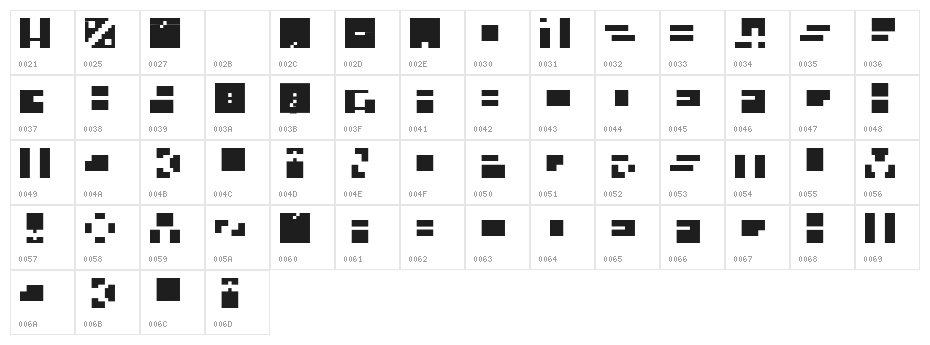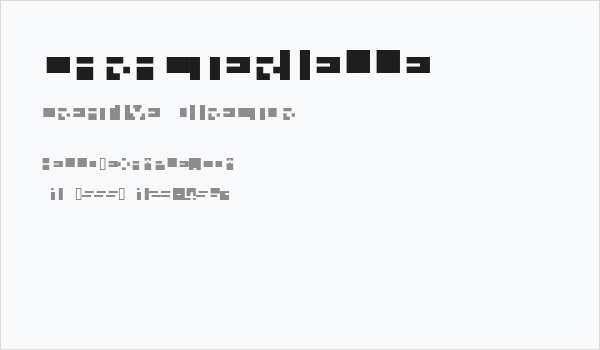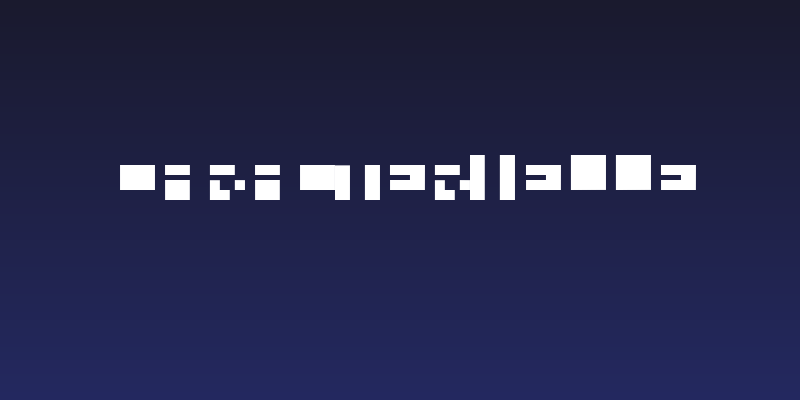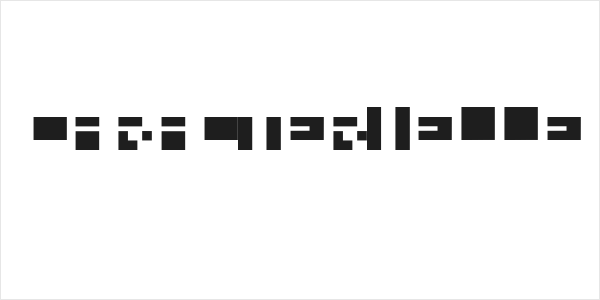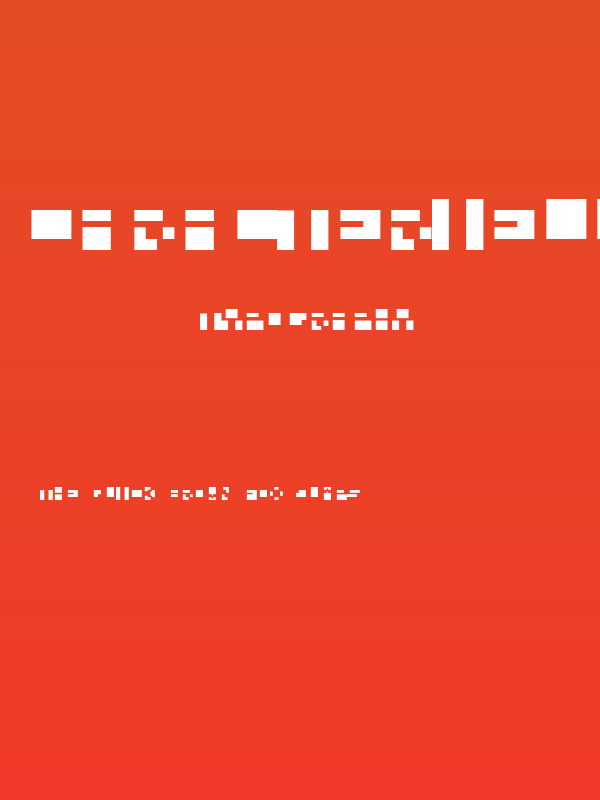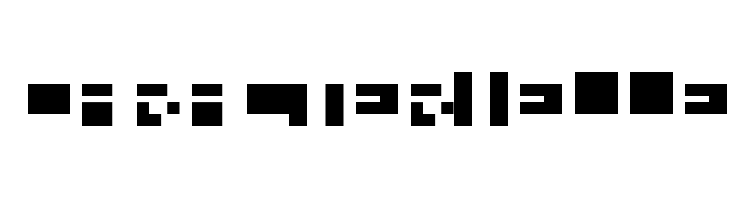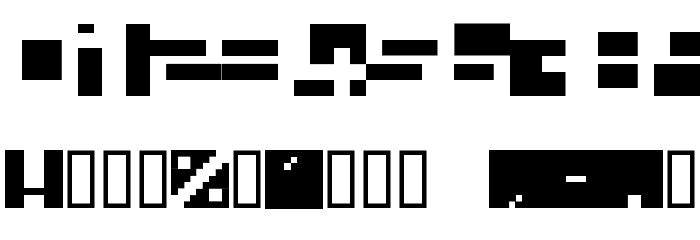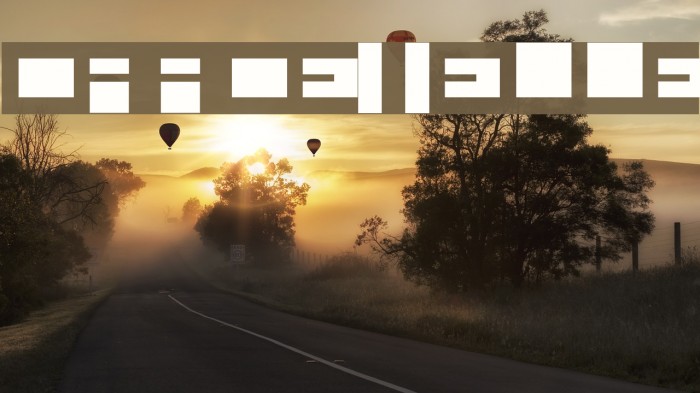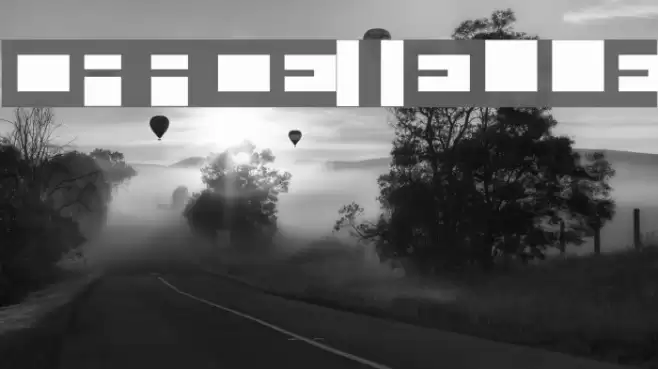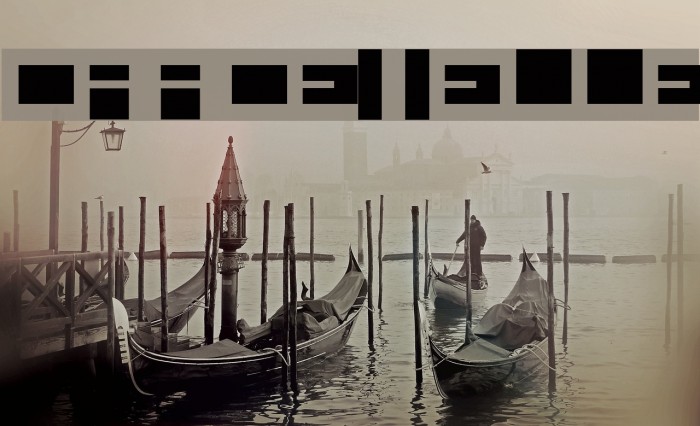
Caracterielle Font
Caracterielle Description
This font exhibits a highly geometric and abstract style, characterized by its blocky and pixelated appearance. Each character is composed of solid, rectangular shapes, creating a digital or futuristic aesthetic. The uppercase and lowercase letters maintain a consistent height, contributing to a uniform look across the text. The numbers and special characters follow the same design principles, ensuring cohesion throughout. This font's unique style makes it stand out, ideal for projects that require a modern, tech-inspired look.